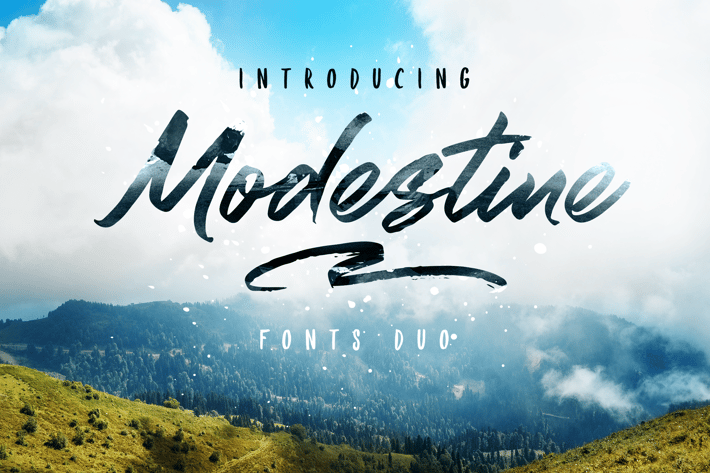
Modestine Script Font
Modestine comes with a full set of upper and lower case characters - giving you the extra freedom to turn your text into authentic custom-made hand lettering.
Modestine font Includes a large range of glyphs including numerals, punctuation & multilingual support.